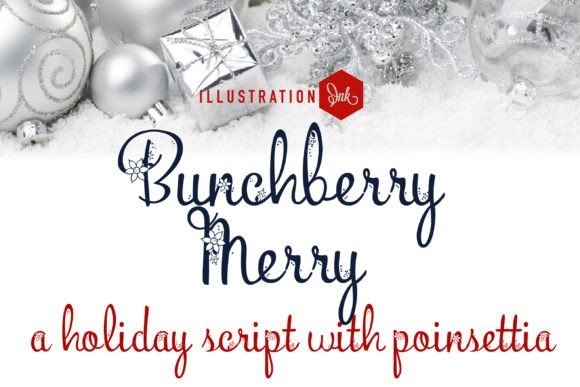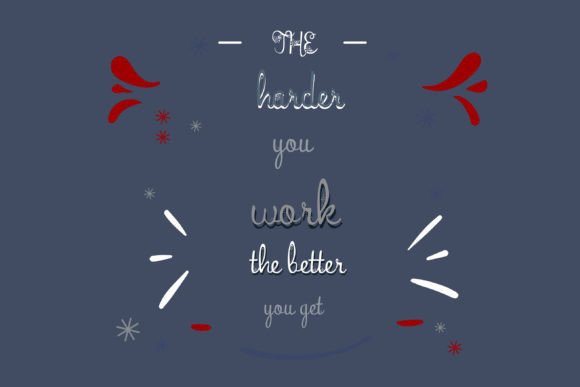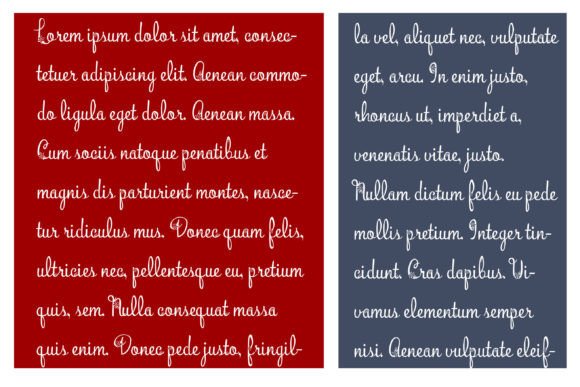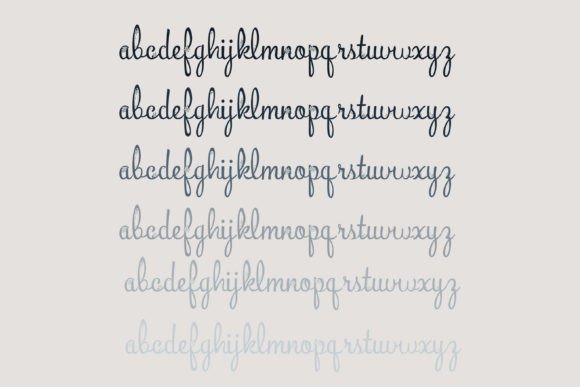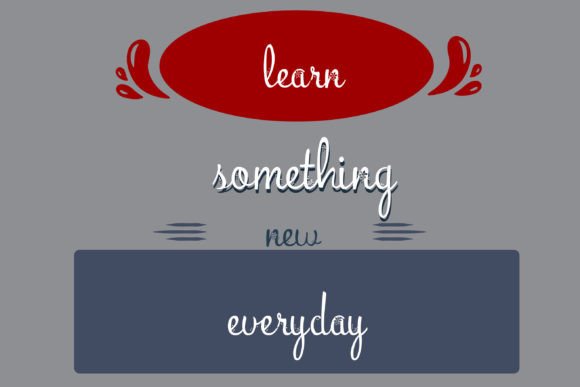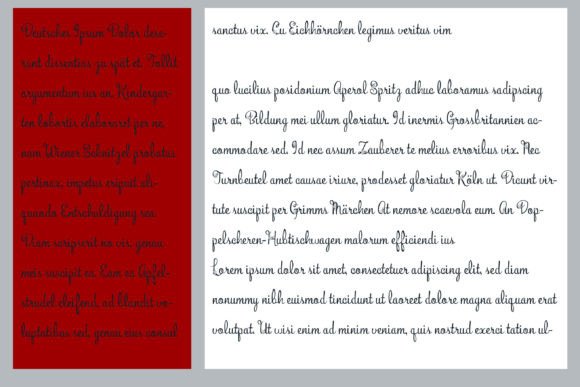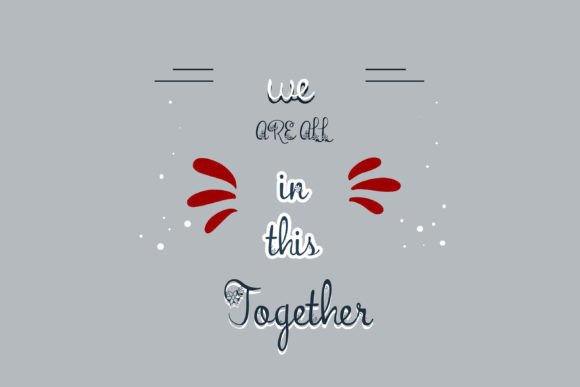
Deck the Halls with Handwritten Charm
As I sat sipping hot cocoa and surrounded by twinkling lights, I stumbled upon a font that captured the essence of the holiday season. The Bunchberry Merry Font, with its delicate script and festive flourishes, immediately transported me to a cozy winter wonderland. The intricate details of this hand-crafted font – featuring pretty Christmas florals and berries on the uppercase and much of the lowercase – begged to be used in a special project.
For designers, the Bunchberry Merry Font offers a unique opportunity to infuse their work with a touch of personality and whimsy. This hand-written script font is perfect for invitations, greeting cards, and other holiday-themed projects where a casual, yet elegant, feel is desired. Whether you’re creating a Christmas card for a loved one or designing a festive website, the Bunchberry Merry Font is sure to add a special touch to your design.
Bunchberry Merry Font Key Features
- Unique Characteristics: The Bunchberry Merry Font features a playful, whimsical design with intricate details and ornate flourishes, making it ideal for festive and celebratory projects.
- Language Support: Supports a wide range of languages, including Latin, Cyrillic, and Greek alphabets, making it suitable for international projects.
Bunchberry Merry Font Review
I was excited to try out the Bunchberry Merry Font, and overall, it’s a fun and playful script font. ✨ The flowing connections between letters make it perfect for adding a touch of whimsy to holiday projects, especially Christmas and New Year’s designs.
Here are some of its strengths:
- ✨ Unique, hand-drawn feel that’s perfect for creative projects
- ✨ Good for short text snippets, like headings or titles
- ✨ Fun and festive, making it ideal for holiday-themed designs
- ⚠️ Limited legibility at smaller font sizes
- ⚠️ Not ideal for large blocks of text, as it can become overwhelming
- ⚠️ May not be suitable for formal or professional projects
Overall, I think the Bunchberry Merry Font is a great addition to any designer’s toolbox, especially during the holiday season. While it has some limitations, its unique charm and festive feel make it a great choice for the right projects.
Tips for Getting the Most Out of Bunchberry Merry Font
To get the most out of Bunchberry Merry Font, try:
1. Using it in conjunction with other festive fonts for a unique look.
2. Adjusting the font size and style to match your design’s tone and atmosphere.
3. Experimenting with different font combinations to create a cohesive look.
Common Use Cases for Bunchberry Merry Font
Bunchberry Merry Font is perfect for:
1. Holiday card designs and invitations.
2. Social media posts and ads promoting holiday sales or events.
3. Branding and marketing materials for businesses in the holiday industry.
Alternatives to Bunchberry Merry Font
Great Vibes Font is a playful and elegant script font that is perfect for adding a touch of whimsy to your designs. It’s ideal for use in invitations, wedding stationery, and other creative projects. Great Vibes Font is more elegant than Bunchberry Merry Font, with a more refined and sophisticated feel.
Pacifico Font is a beautiful, modern script font that is great for use in branding, packaging, and other design projects. It’s perfect for adding a touch of sophistication and elegance to your designs. Pacifico Font is more minimalist and clean than Bunchberry Merry Font, making it ideal for use in a variety of contexts.